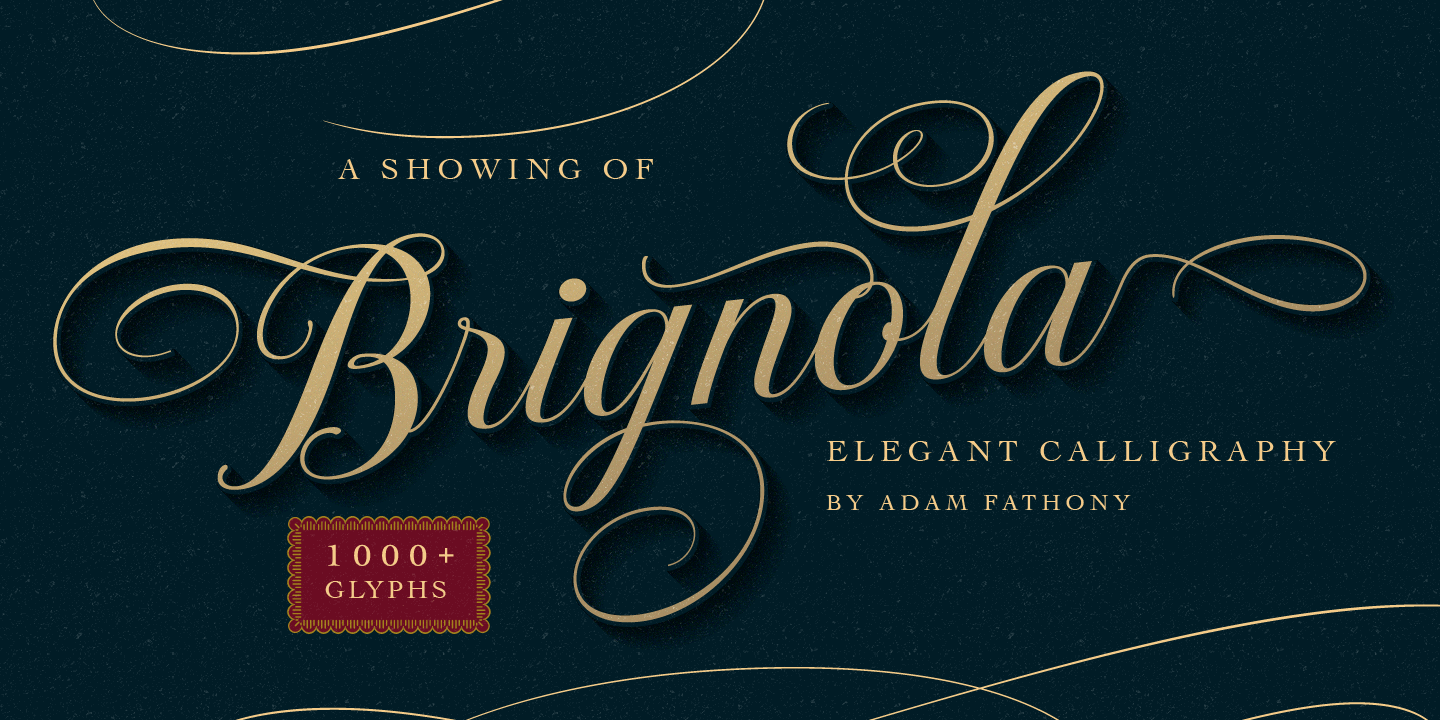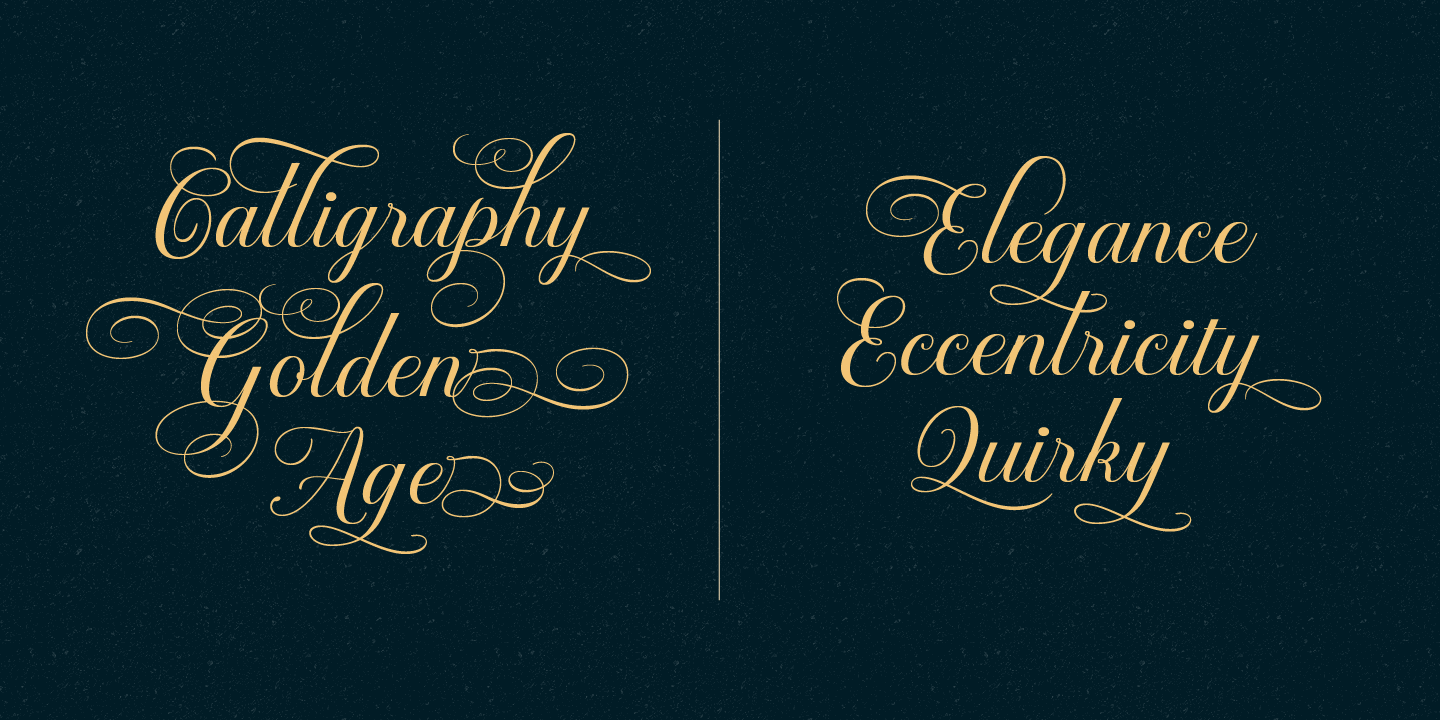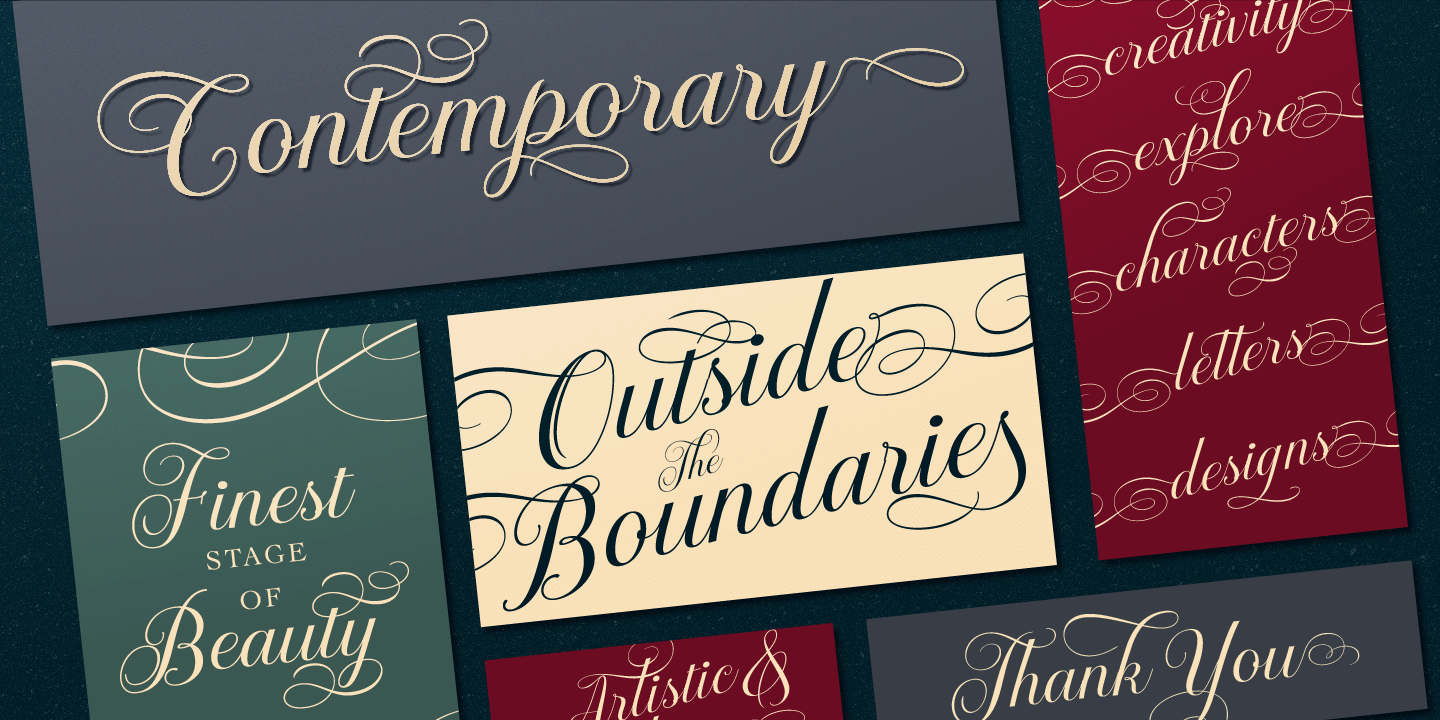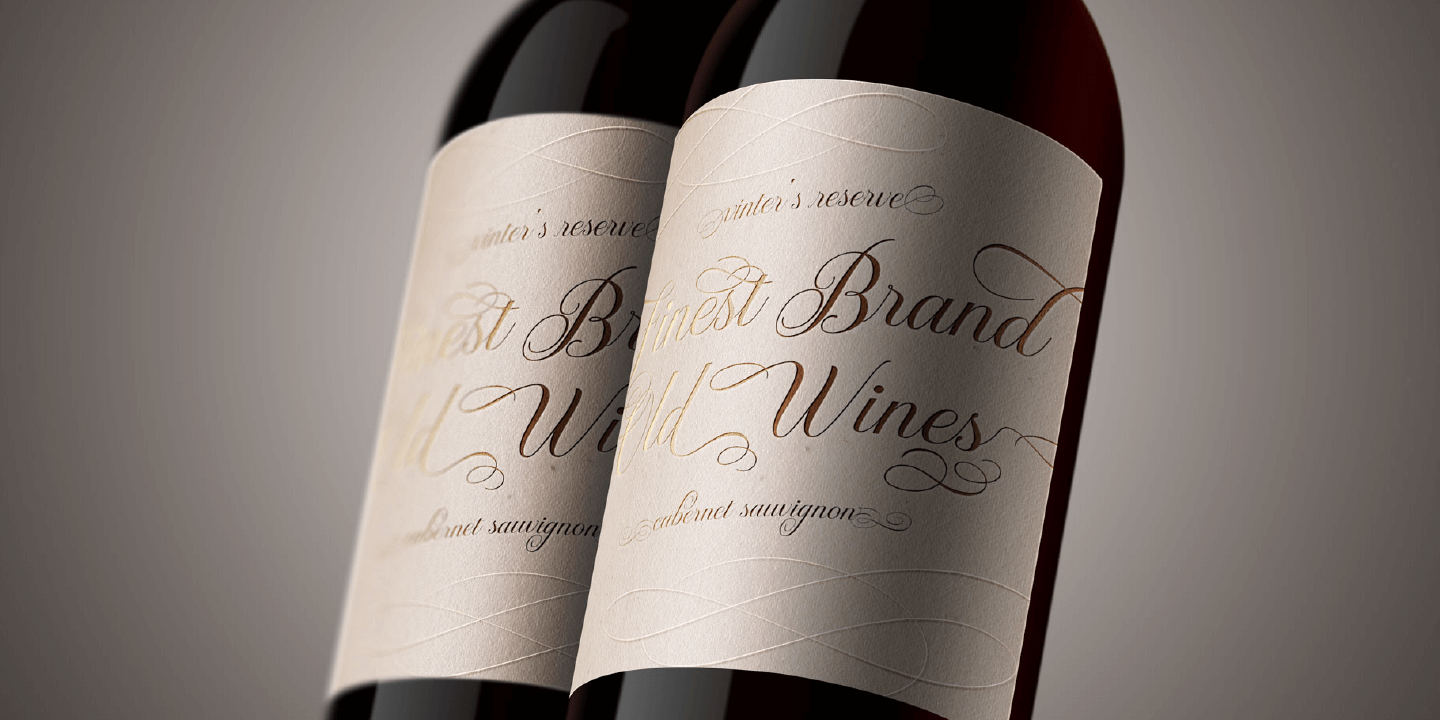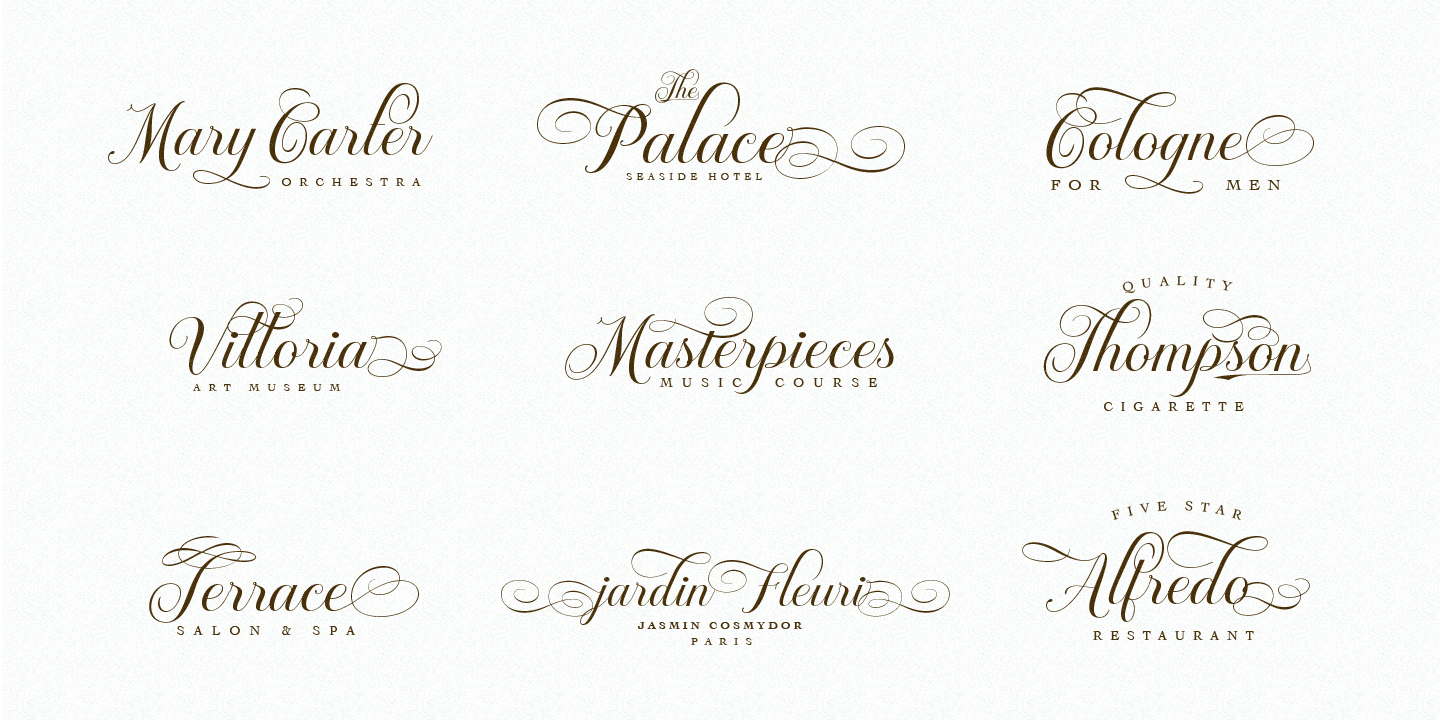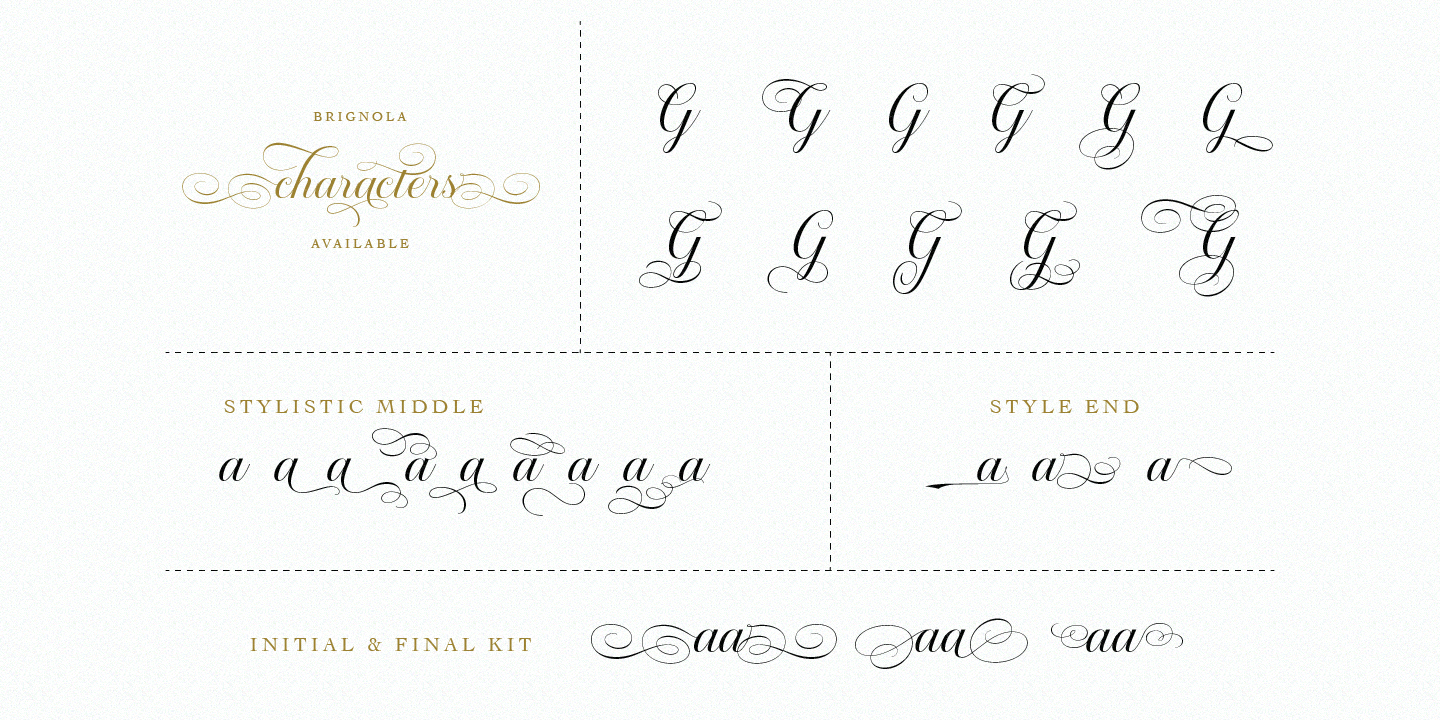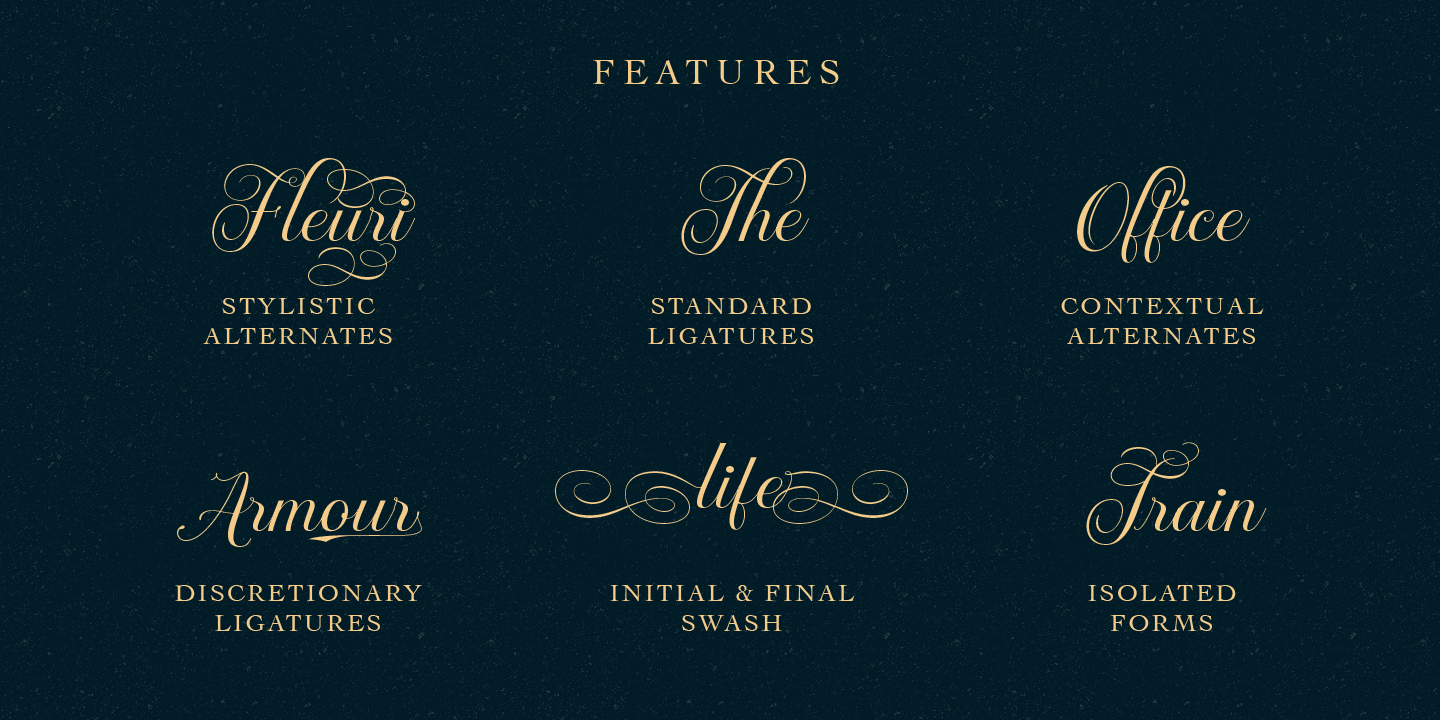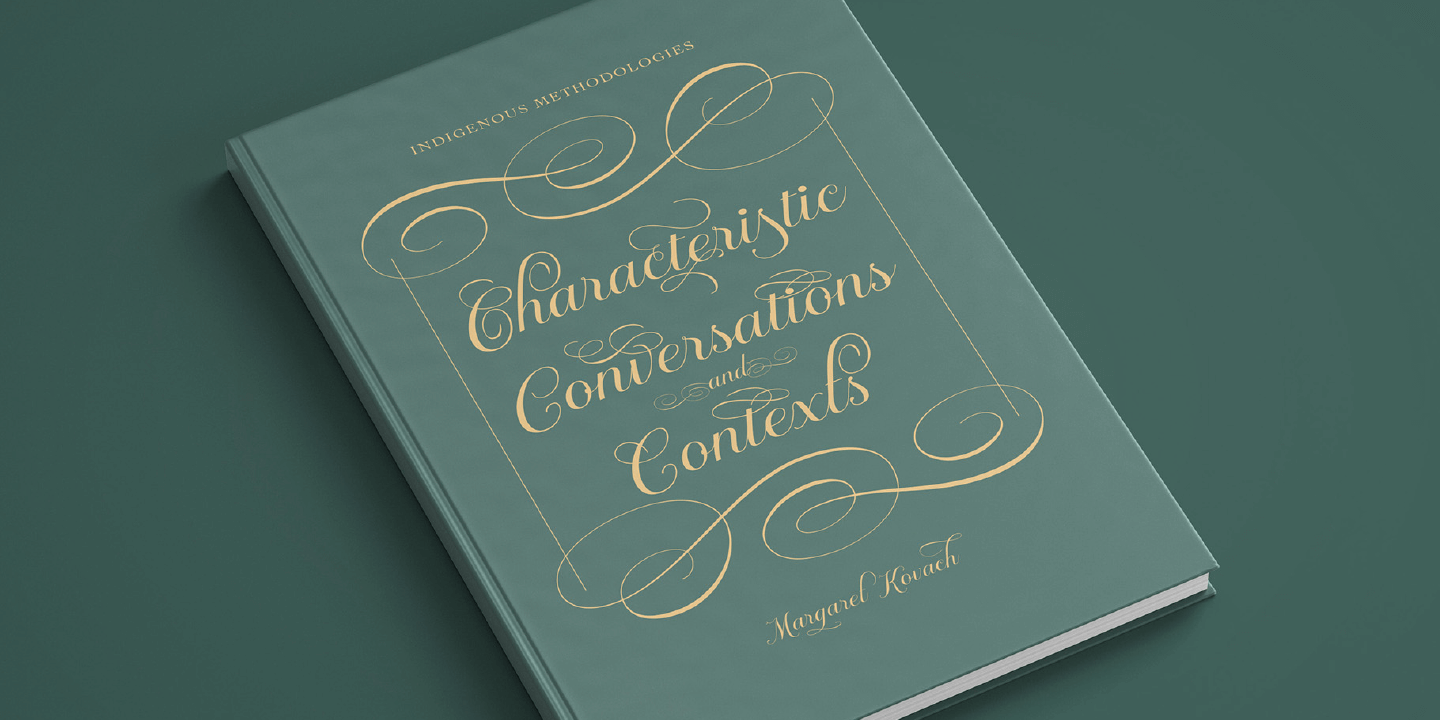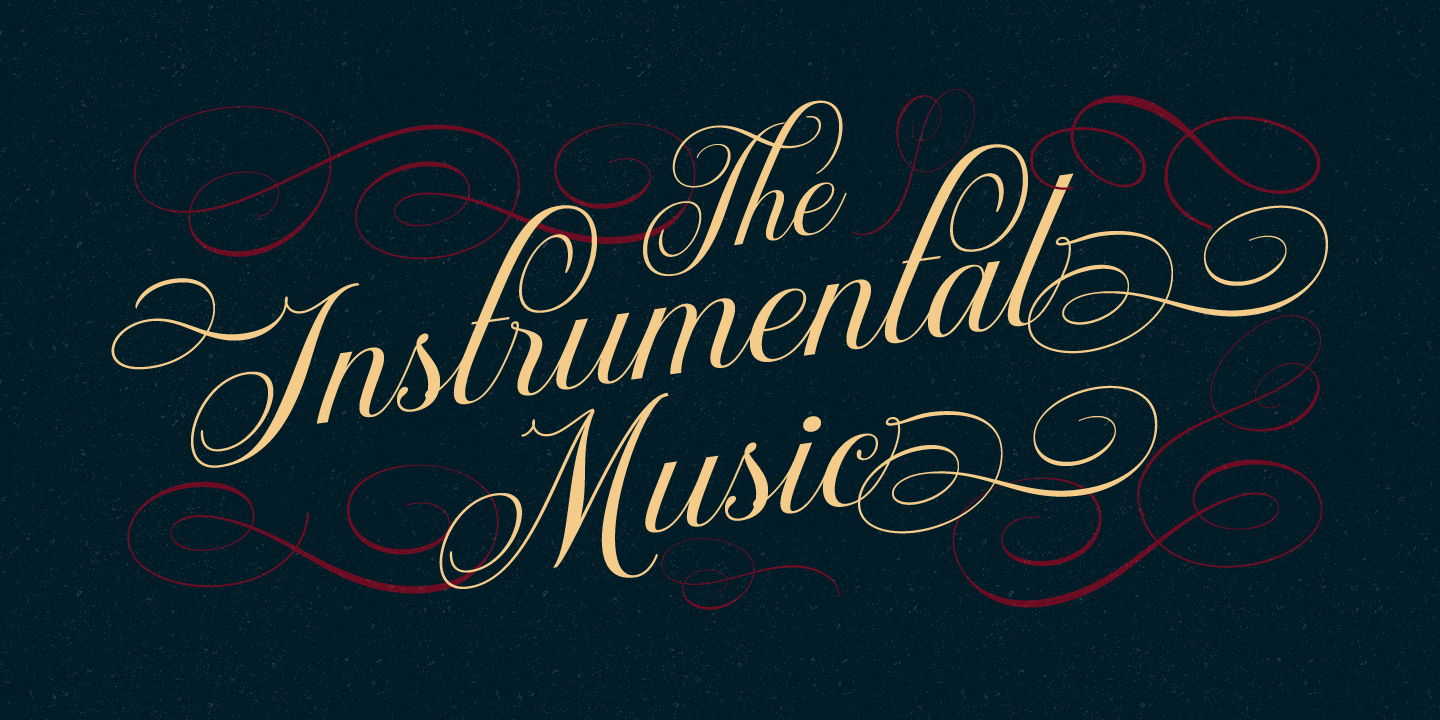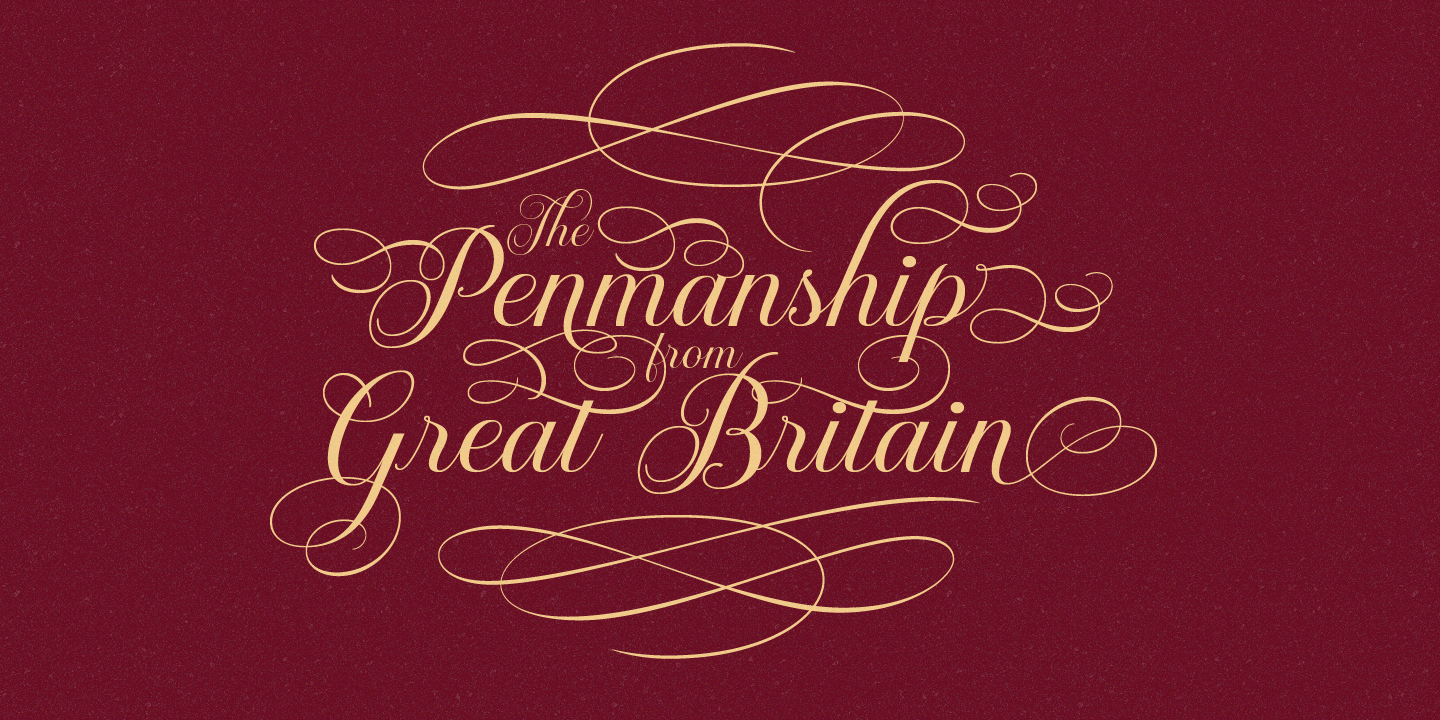
Brignola Script
Starting with reading some book of typography, that made me inspired to creating an elegant fonts. Calligraphy in specific. And I think the calligraphy have an advantage for the alternate characters, It has a Tons of style for explore in just one letter. My exploration of this fonts as not easy as my imagination, it takes several trial and error for the perfect balance of the style.
Some of the letters have more alternate than others, it is fine because the limitations of the shape of the letters, it must readable and legible. Every letter I've chosen is only the best on it and fit with the character style. In total, Brignola has more than 1,000 glyphs inside.
Features Include:
- Contextual Alternates)
- Stylistic Alternates)
- Ligature
- Discretionary Ligatures
- Initial & Final Swash
- Isolated Forms